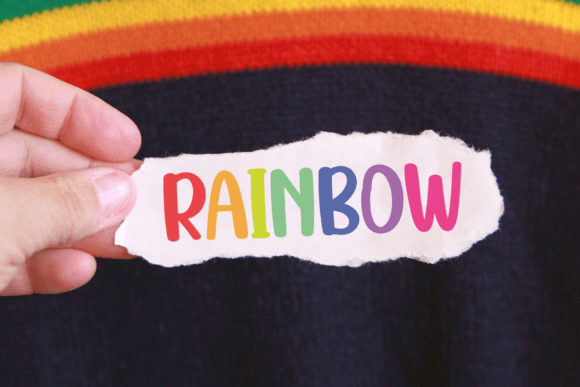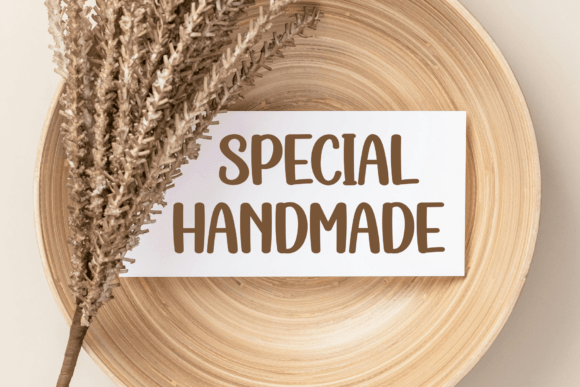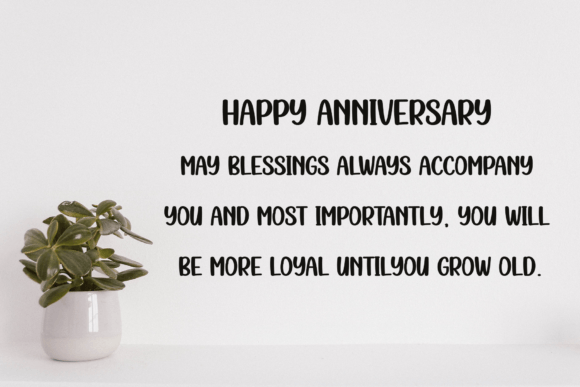
Introduction to Green Screen Font
Green Screen is a neat and beautiful handwritten font described by an elegant touch, perfect for your favorite projects.
Fall in love with its incredibly distinct and timeless style, and use it to create spectacular designs .
Key Features of Green Screen Font
Why Choose Green Screen Font?
Green Screen Font offers exceptional quality and versatility, making it a valuable addition to your design toolkit. Whether you’re creating for personal projects or commercial use, Green Screen Font delivers professional results.